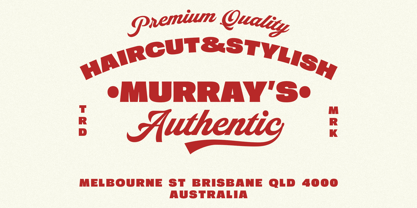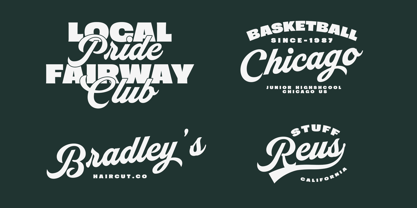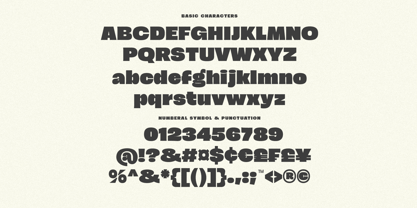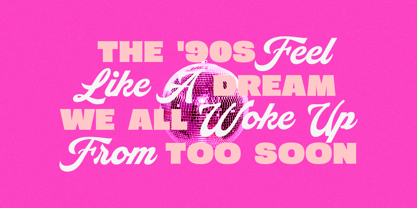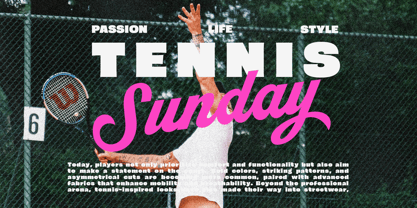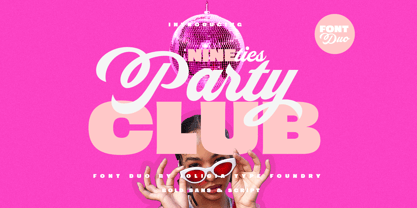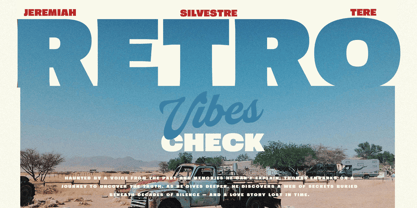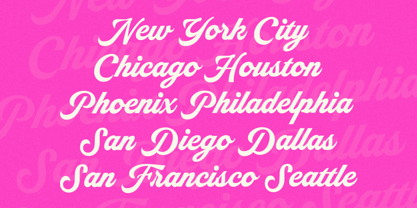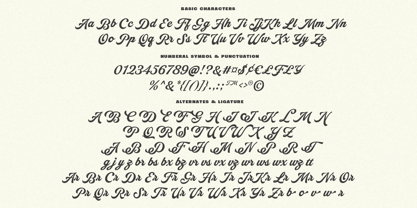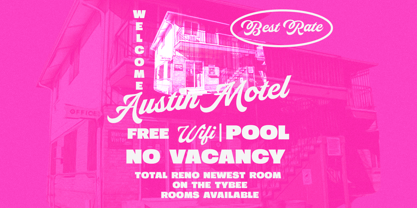
Nineties Party Club
The Nineties Party Club Font Family was designed by Laire Banyu, Dyaharum Pungki Revitasari and published by Jolicia Type. Nineties Party Club contains 2 styles and family package options. More about this family
Bring back the party spirit of the ’90s with Nineties Party Club, a bold retro font duo that combines a striking sans serif with a thick, energetic script. This powerful pairing delivers a fun and nostalgic vibe, perfect for designs that demand attention with a throwback twist.
The sans serif font brings a solid, confident presence great for headlines, logos, and bold statements while the script font adds a dynamic, stylish flow with thick curves and retro flair.
Perfect for: party posters, branding, product packaging, social media graphics, and any creative project that craves a bold and playful 90s aesthetic.